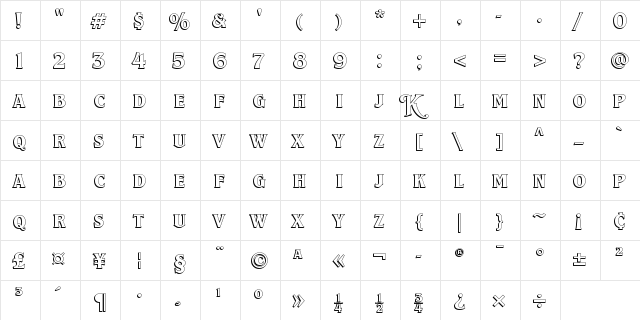
Ephemera Kingsford DEMO Font Preview
Ephemera Kingsford DEMO
Ephemera Kingsford DEMO Font Details
| Style | DEMO |
| Foundry | Ephemera Fonts |
| Designer | Ilham Herry & Gilang Purnama |
Design Context for Ephemera Kingsford Typeface
Ephemera Kingsford offers clean, dependable letterforms without strong stylistic allegiance, making it a practical choice for designers who need flexibility.